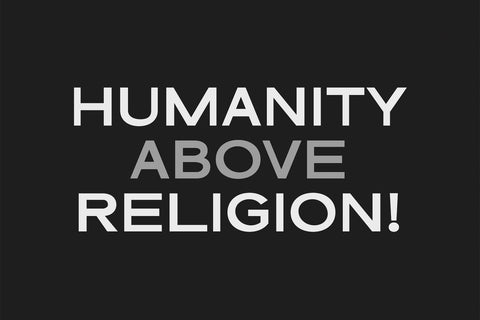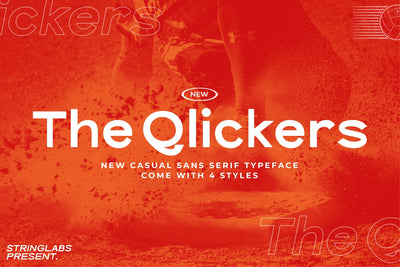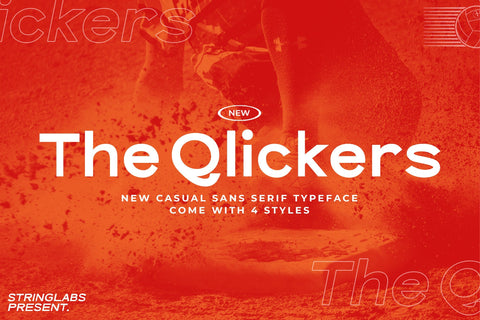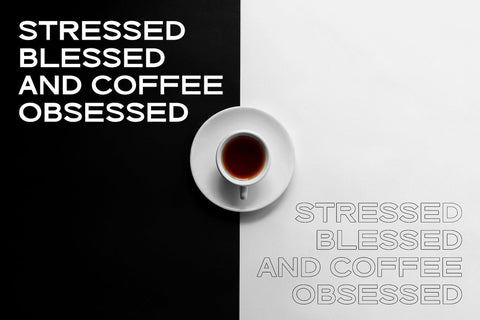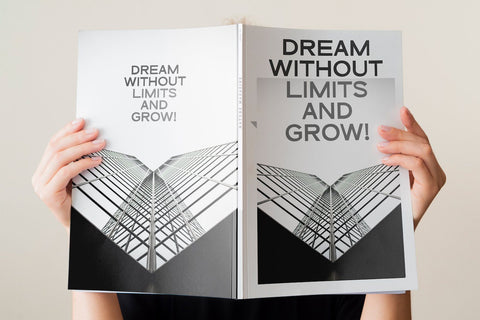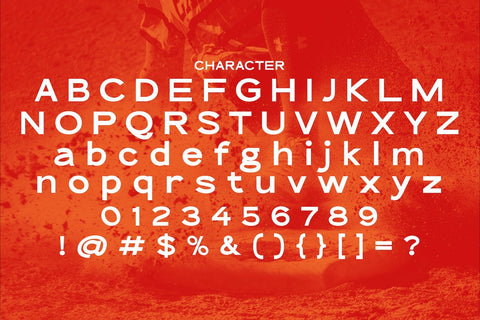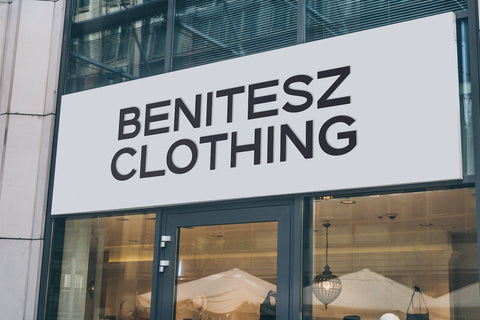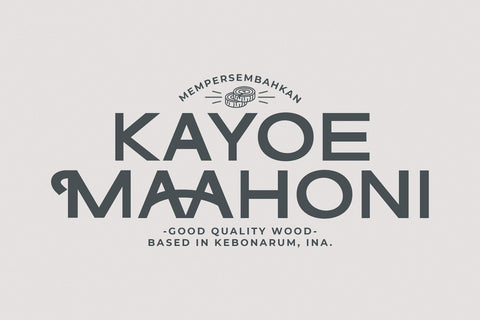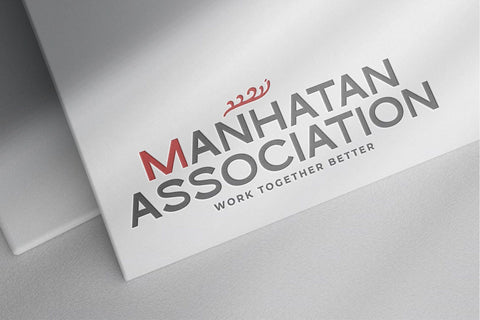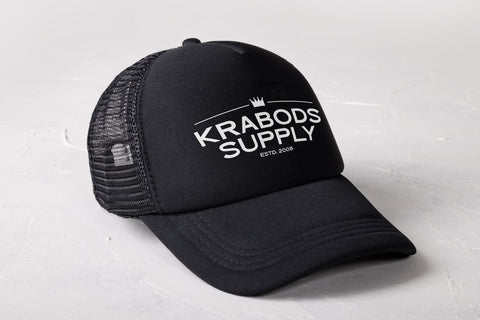
The Qlickers - Casual Sans Serif Font
Introducing The Qlickers - Casual Sans Serif Font
The Qlickers is a casual sans serif font. This beautiful and professional typeface is suitable for film posters, headlines, block letters, subheadings, logo designs, and so much more.